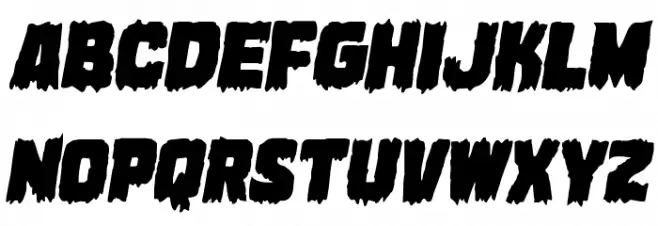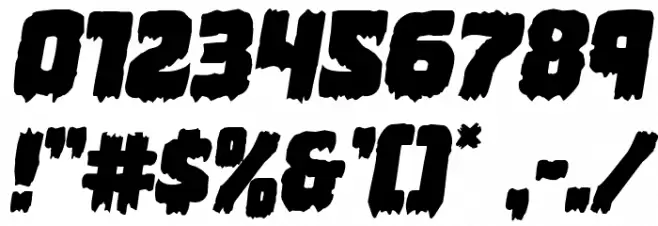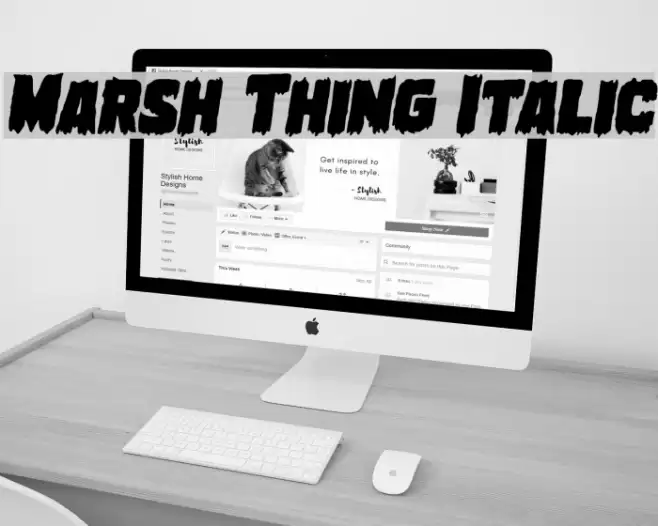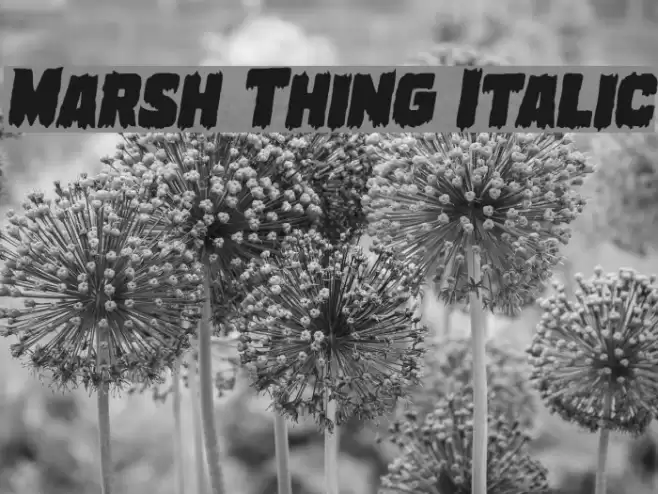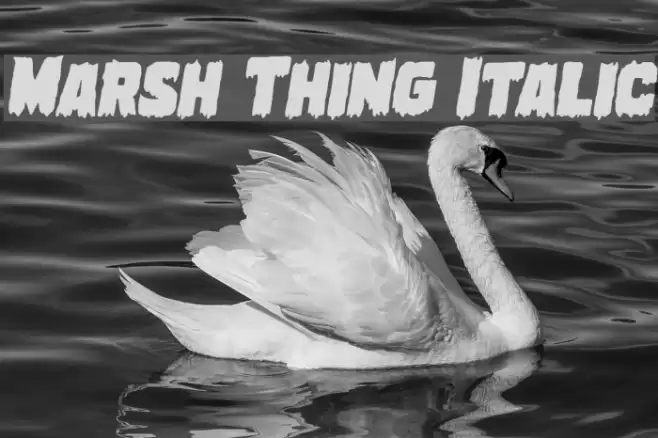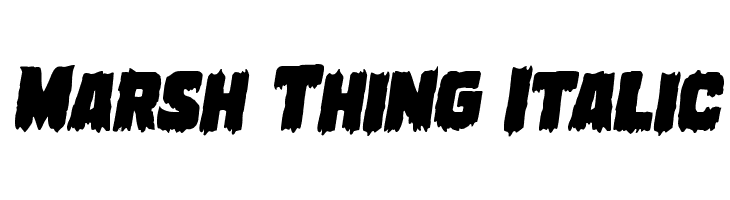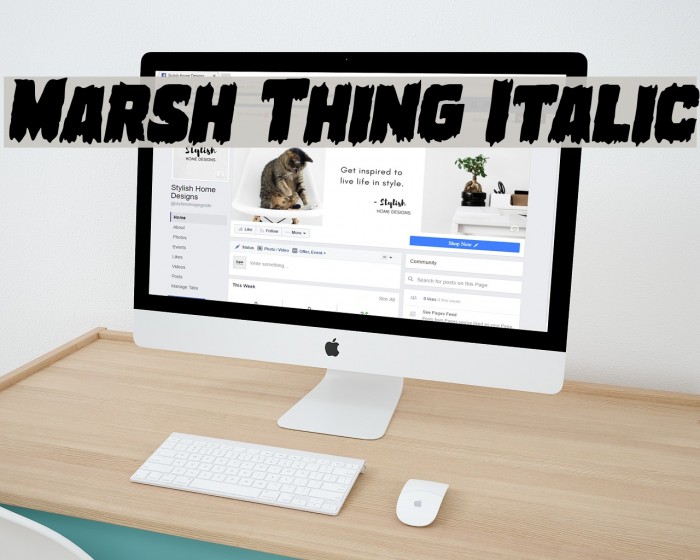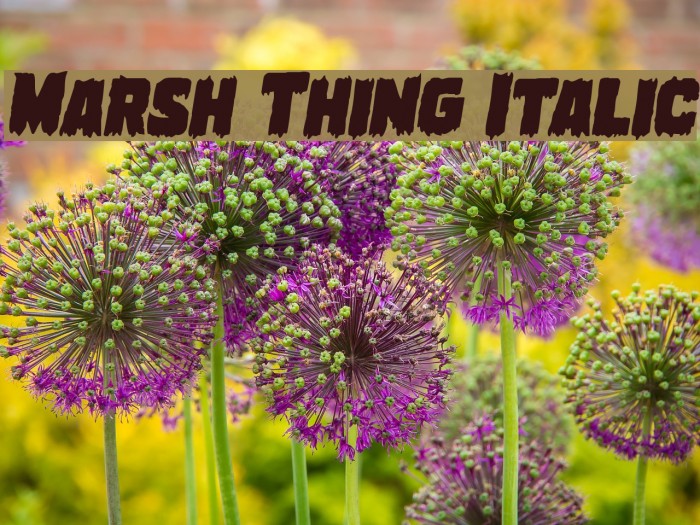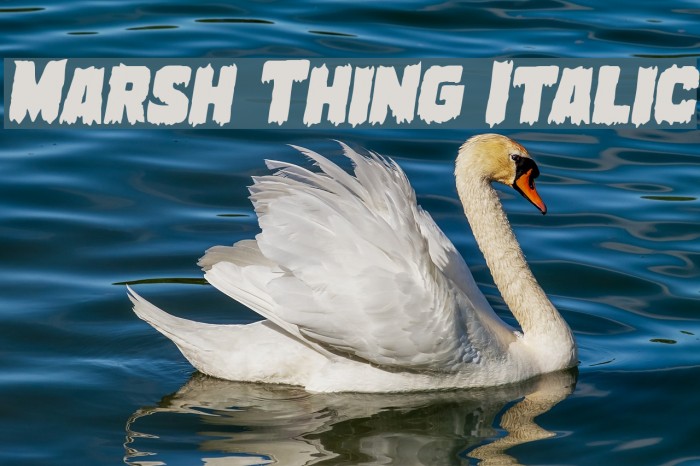
Marsh Thing Italic
This font features a bold and dynamic style with a rugged, distressed appearance. The characters are heavily stylized with jagged edges, giving them a raw and energetic feel. The italic slant adds a sense of motion and urgency, making it stand out in any design. The uppercase and lowercase letters maintain a consistent weight, contributing to a cohesive look. Numbers and special characters are equally bold and expressive, ensuring versatility across various applications. The overall design is reminiscent of horror or thriller themes, making it ideal for projects that require a dramatic and impactful typeface.
A bold, distressed italic font with a rugged, energetic style.
- Proposed Projects: Ideal for horror movie posters, Halloween event flyers, edgy branding, and album covers.
- Overall Style: Decorative
- Use Case: Headlines, Posters, Branding